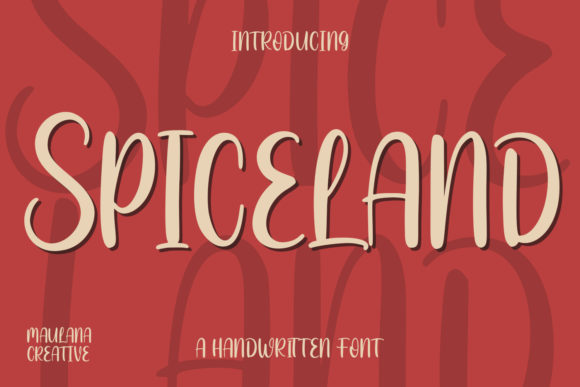
Step into the world of captivating expression with Spiceland Font, the essence of handwritten elegance. Crafted with meticulous care by Maulana Creative, this script font family embodies the allure of Latin, carrying the heritage of artistry across languages.
Spiceland Font is more than just a collection of letters; it's an artistic haven for those yearning to make a lasting impression. Its effortless strokes and stylish curves dance across the page, weaving tales of creativity and individuality. Whether you're a seasoned designer or a budding enthusiast, Spiceland Font is your gateway to boundless expression.
Unleash your creativity with Spiceland Font's versatility, perfectly suited for an array of projects. From whimsical posters that capture attention to elegant flyers that leave a lasting impact, Spiceland Font effortlessly elevates your designs beyond the ordinary. Its charm extends to the digital realm, adding a touch of sophistication to social media posts, website headers, and online invitations.
With Spiceland Font, you're not just creating words; you're crafting an experience. Its casual, chic, and friendly demeanor invites readers into your world, captivating their senses and leaving an indelible mark. Whether you're designing a logo that speaks volumes about your brand or a wedding invitation that exudes romance, Spiceland Font weaves its magic, transforming your vision into a tangible masterpiece.
Embrace the endless possibilities of Spiceland Font. Explore its intricate details, let your imagination soar, and watch as your words dance off the page with unparalleled grace. Join the ranks of creatives who have discovered the transformative power of this remarkable font, allowing their ideas to flourish and their designs to shine.